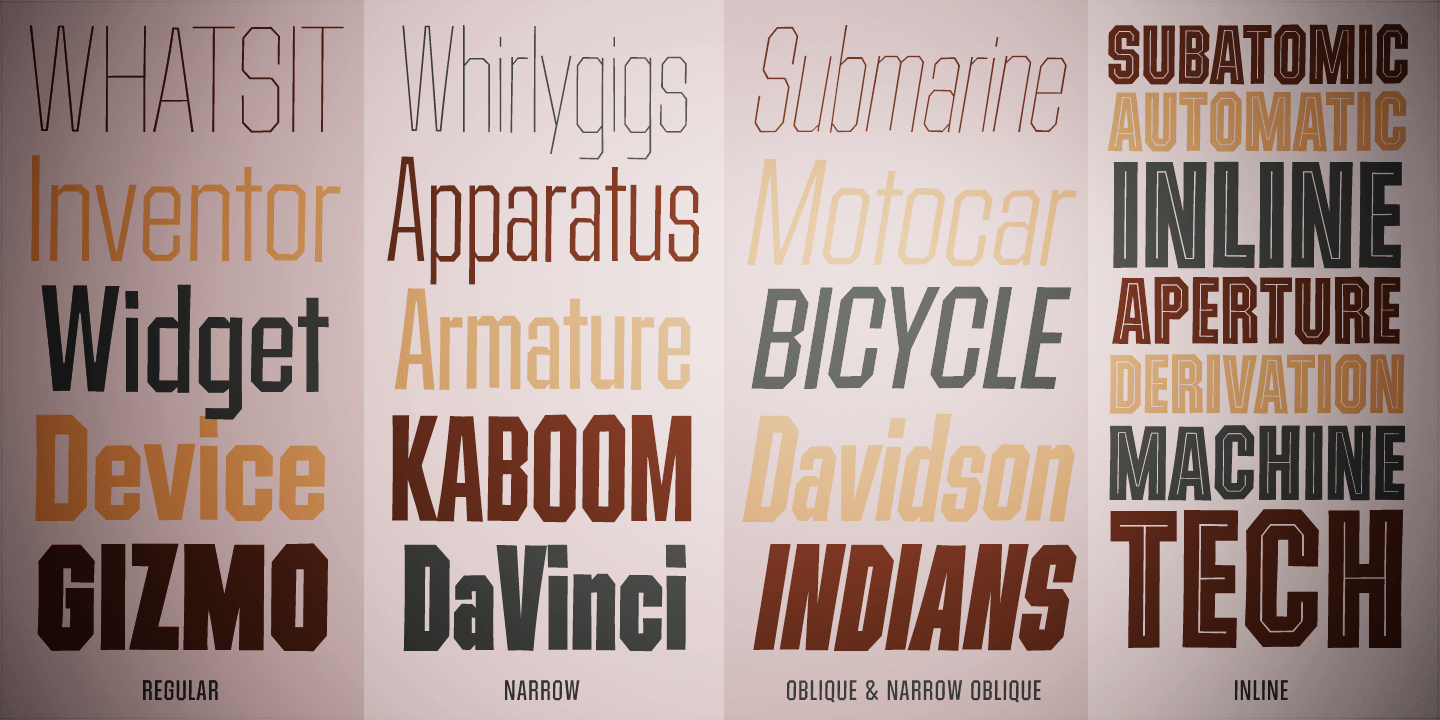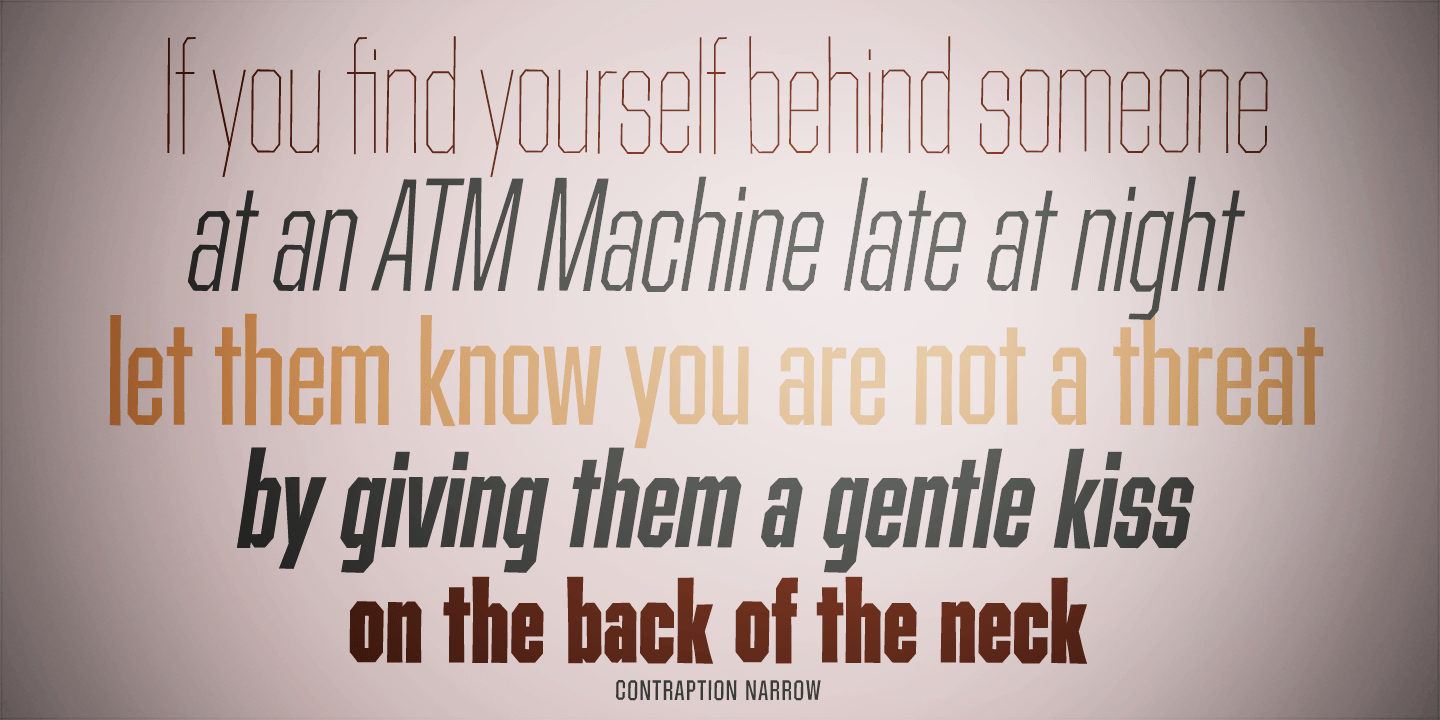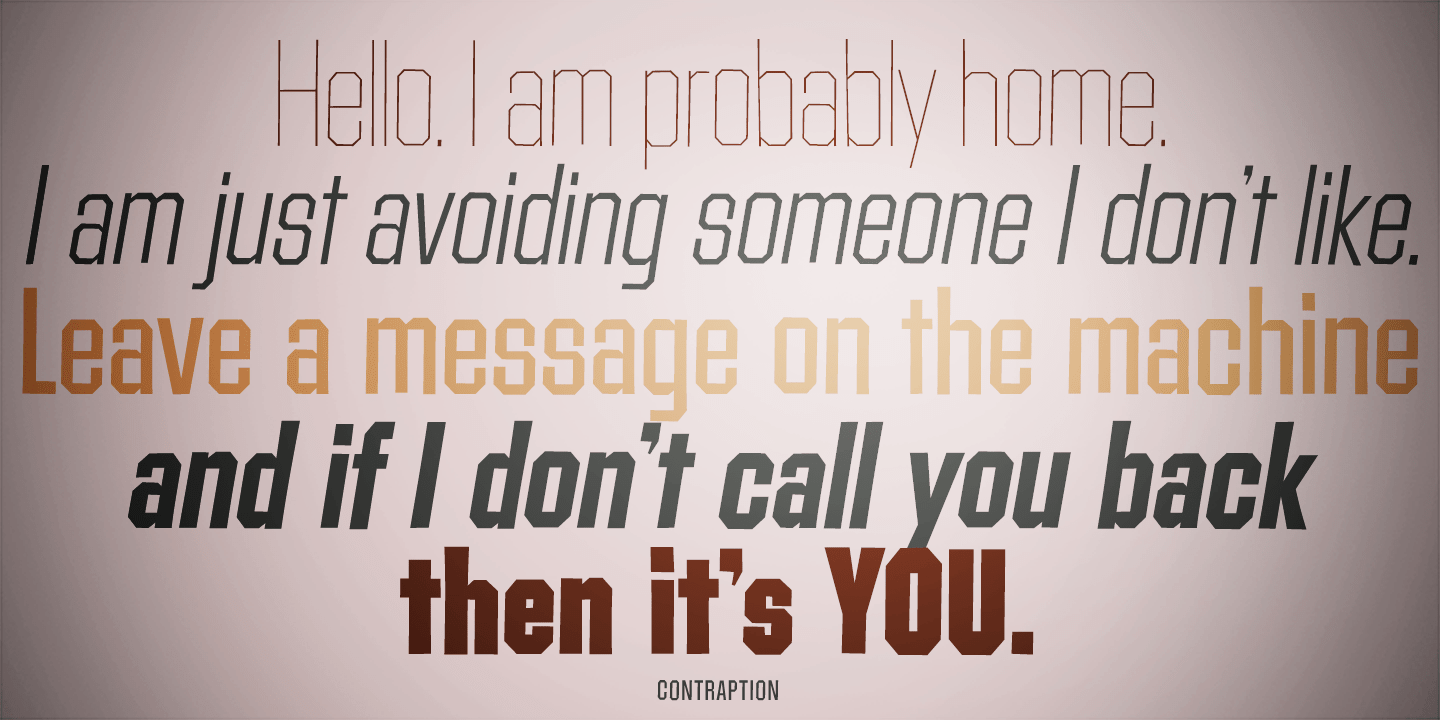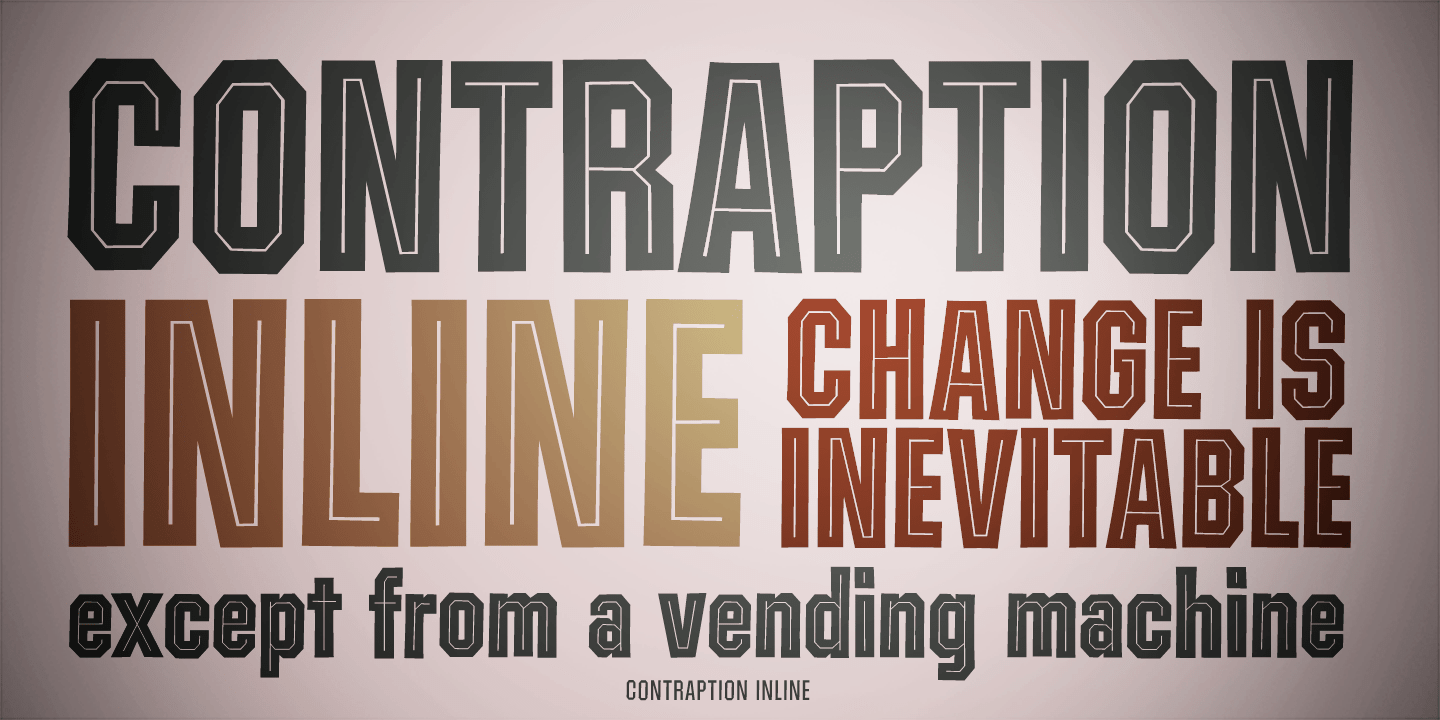
About Contraption
Slightly off-kilter to give this rigid geometric a little personality, Contraption started as a digitization of a film typeface called Intrigue by Lettergraphics. From there, this mechanical typeface was expanded into a giant family of useful widths,…